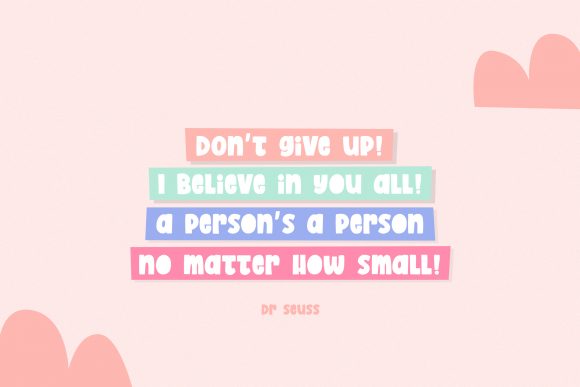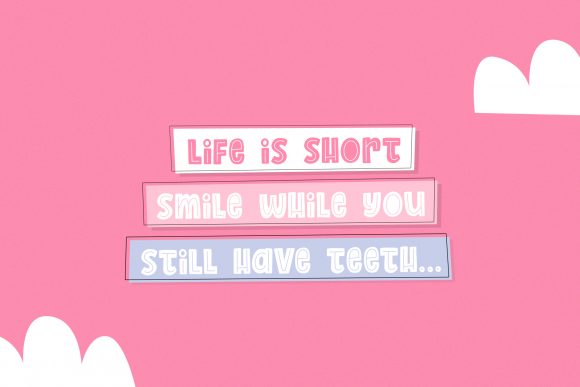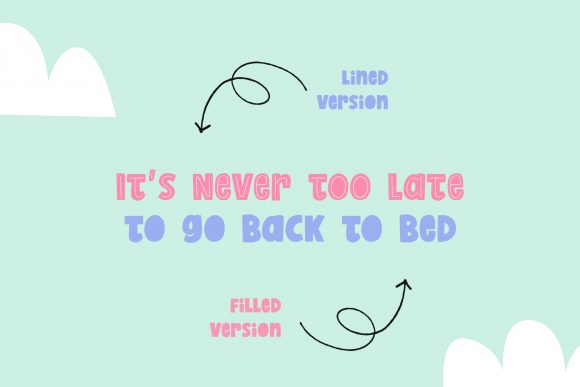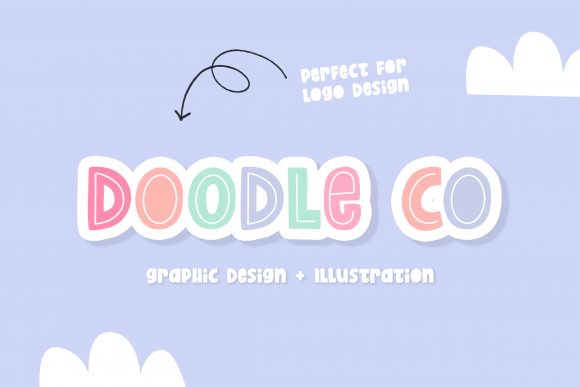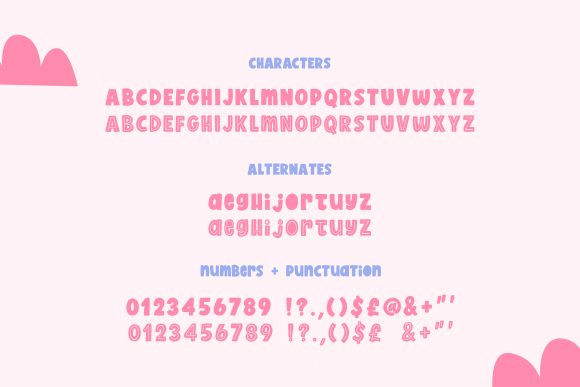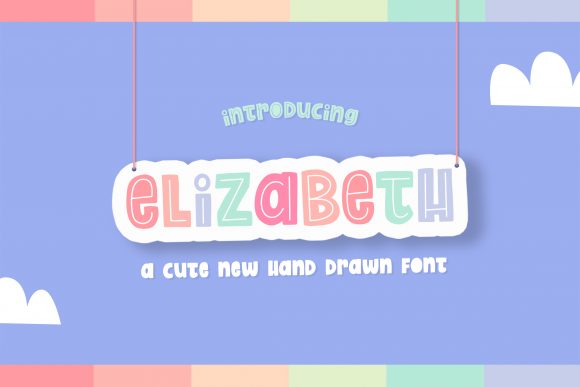
Introducing Elizabeth Font: The Playful and Charming Display Font for Kids’ Designs
Are you a designer or crafter looking for a font that embodies playfulness and authenticity for your children’s themed designs? Look no further than Elizabeth Font! This adorable and chunky lettered display font is perfect for adding a touch of fun and whimsy to your projects, especially when paired with bright and bold colors.
What Makes Elizabeth Font So Special?
Elizabeth Font is a unique and eye-catching display font that is sure to capture the attention of your audience. Its chunky and playful lettering style makes it perfect for use in children’s books, educational materials, posters, and other designs where a fun and youthful vibe is desired. The font’s bold and rounded edges give it a friendly and approachable feel, making it an excellent choice for designs aimed at kids.
Key Features of Elizabeth Font
- Playful and Authentic: Elizabeth Font is designed to evoke a sense of playfulness and authenticity, making it perfect for children’s themed designs.
- Chunky and Bold: The font’s chunky and bold lettering style makes it highly legible and attention-grabbing.
- Versatile: Elizabeth Font can be used in a variety of design projects, from children’s books and educational materials to posters and craft projects.
- Easy to Read: The font’s rounded edges and simple lettering style make it easy to read, even for young children.
Perfect for Kids’ Designs
Elizabeth Font is specifically designed with kids’ designs in mind. Its playful and charming style makes it perfect for use in:
- Children’s books and storybooks
- Educational materials and worksheets
- Posters and flyers for kids’ events
- Craft projects, such as DIY cards and gift tags
- Websites and blogs aimed at children and families
Tips for Using Elizabeth Font Effectively
To get the most out of Elizabeth Font, here are a few tips to keep in mind:
- Pair with Bright Colors: Elizabeth Font looks best when paired with bright and bold colors. Try combining it with colors like pink, blue, yellow, and green to create a fun and playful design.
- Use in Large Sizes: Elizabeth Font is designed to be used in large sizes, so don’t be afraid to experiment with different font sizes to create a bold and eye-catching design.
- Experiment with Different Styles: Elizabeth Font can be used in a variety of different styles, from bold and chunky to more subtle and elegant. Experiment with different styles to find the one that works best for your design.
| Font Name | Elizabeth Font |
| Author | Salt and Pepper Fonts |
Elizabeth Font is a unique and charming display font that is perfect for kids’ designs. Its playful and authentic style makes it a great choice for designers and crafters looking to add a touch of fun and whimsy to their projects. With its bold and chunky lettering style, versatility, and ease of use, Elizabeth Font is sure to become a favorite in your design arsenal.